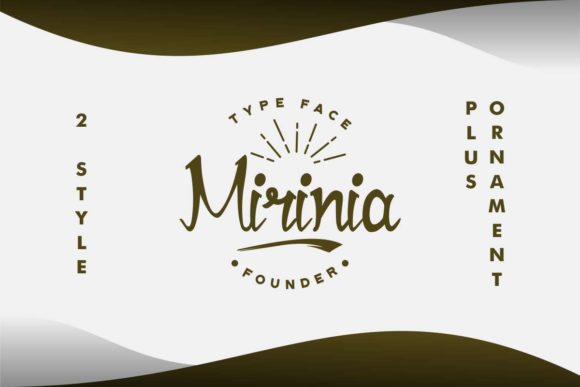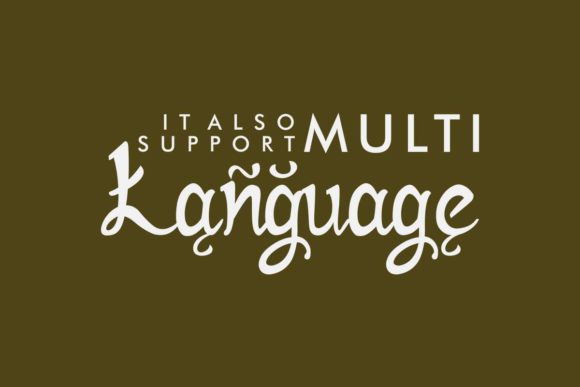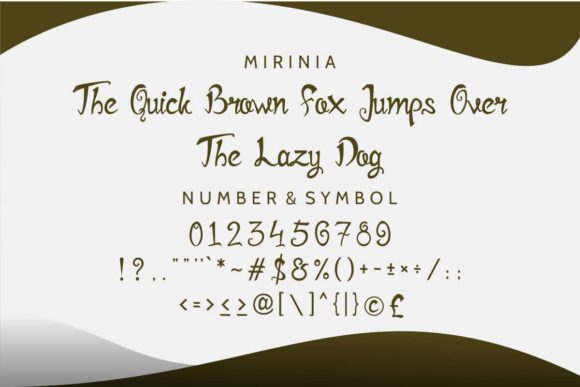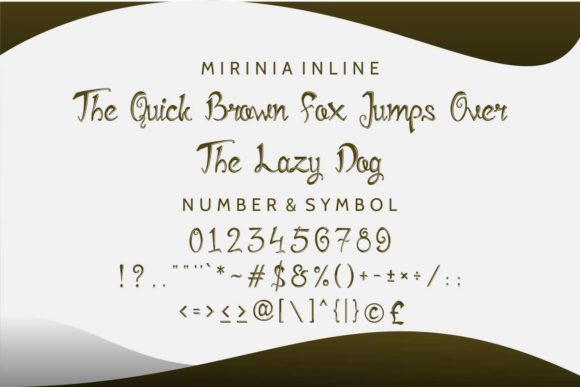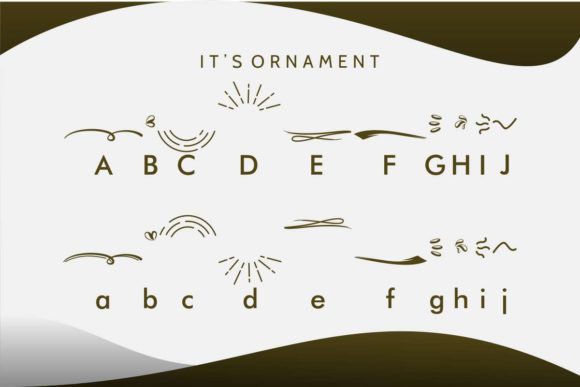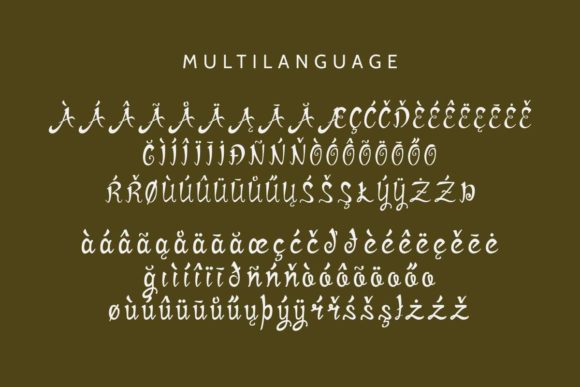
Introduction to Mirinia Font
As designers, we’ve all been there – staring at a blank page, trying to bring our creative vision to life. The words just won’t come together, and no matter how hard we try, it feels like something’s missing. But what if we told you that the perfect solution is just a click away? Enter Mirinia Font, a stunning script font that’s sure to add that special, personal touch to any design project.
With its authentic hand-lettering and meticulous craftsmanship, Mirinia Font is a high-quality design resource that’s perfect for adding a touch of elegance and sophistication to any creative project. Whether you’re working on a branding project, a wedding invitation, or a social media campaign, this beautiful font is sure to elevate your design and make it stand out from the crowd.
Key Features of Mirinia Font
- Characterized by a unique, elegant design that adds a touch of sophistication to any creative project.
- Designed to be highly legible, even at small font sizes, making it ideal for use in a range of design contexts.
Honest Review: Mirinia Font
I recently stumbled upon the Mirinia Font while searching for a high quality, free download for a design project. I’m impressed with what I found!
- ✨ Great legibility: The Mirinia Font is easy to read, even at smaller font sizes.
- ✨ Stylish design: The font has a unique and elegant design that can add a touch of sophistication to any creative project.
- ✨ Versatile: The font comes in a variety of weights and styles, making it a great resource for designers who need flexibility in their design work.
- ⚠️ Limited language support: The Mirinia Font only supports a limited number of languages, which may be a concern for designers working on projects that require a broader language range.
Overall, I’m impressed with the Mirinia Font and would definitely recommend it as a design resource for creative projects. While it may have a few limitations, its high quality and free download make it a great choice for designers on a budget.
Common Use Cases for Mirinia Font
Mirinia Font is a versatile design resource that can be used in a variety of creative projects, including graphics, logos, and typography. Some common use cases for Mirinia Font include:
- Creating custom titles and headings
- Designing unique graphics and illustrations
- Developing logos and brand identities